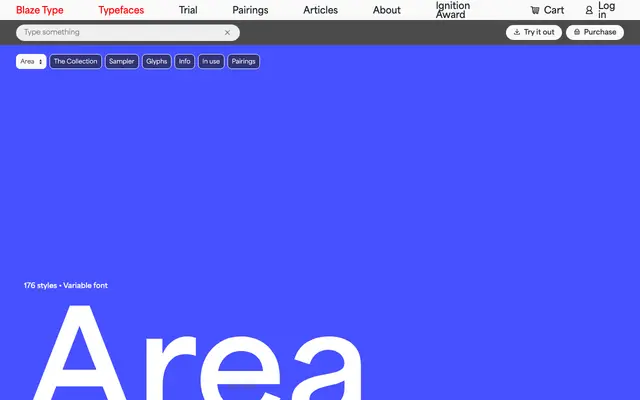
A 176-style grotesque system from Blaze Type spanning four widths, eleven weights and a full inktrap variant family, all available as variable fonts.
Eight sub-families run from Compressed to Extended, each available in standard and inktrap versions, with eleven weights from Hairline to Extrablack and matching italics throughout. The inktrap cuts introduce deliberate ink-trap notches at stroke junctions, giving a technical quality that reads well at both display and text sizes. The variable font format lets designers move fluidly across the weight and width axes within each subfamily.
A contemporary grotesque sans-serif with a distinct inktrap variant across all widths, spanning compressed through extended cuts in the manner of a workhorse display and text system.